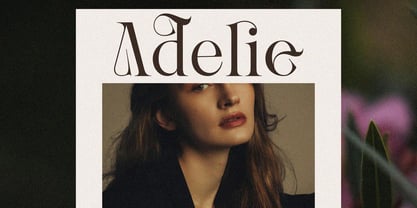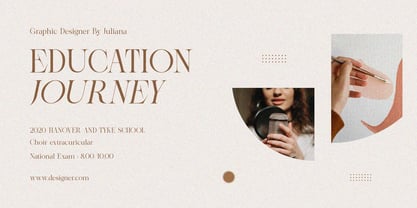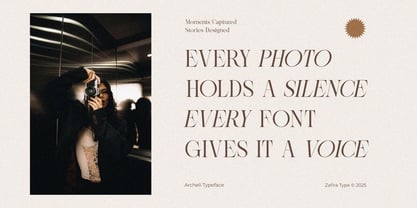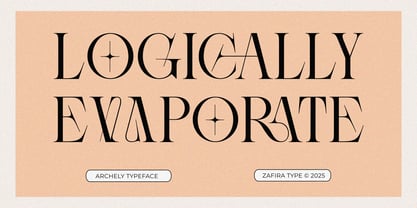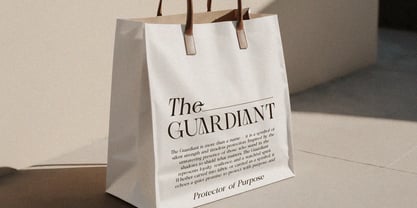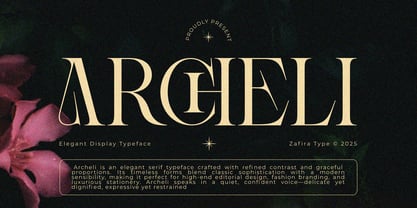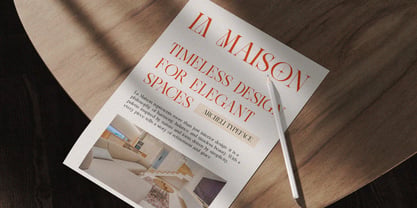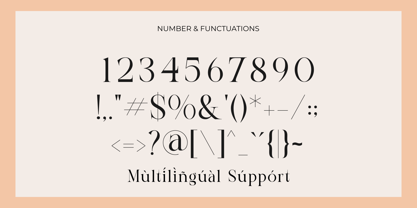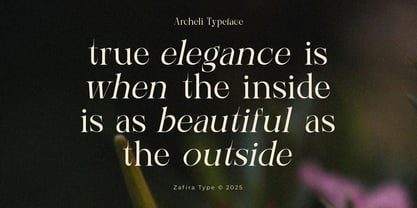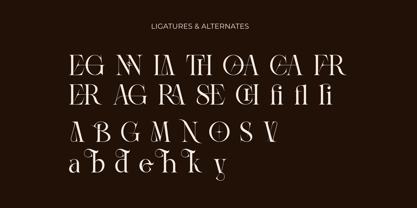
Archeli
by Zafira Type
The Archeli Font Family was designed by Su Hirno and published by Zafira Type. Archeli contains 2 styles and family package options. More about this family
Archeli is an elegant serif typeface crafted with refined contrast and graceful proportions. Its timeless forms blend classic sophistication with a modern sensibility, making it perfect for high-end editorial design, fashion branding, and luxurious stationery. Archeli speaks in a quiet, confident voice—delicate yet dignified, expressive yet restrained
Designers: Su Hirno
Foundry: Zafira Type